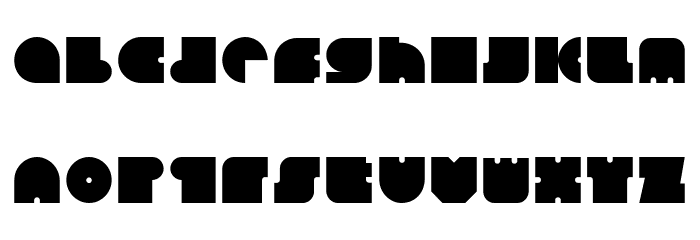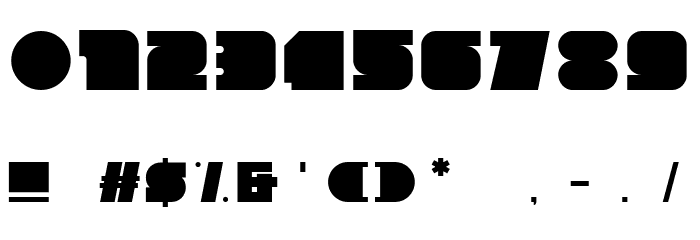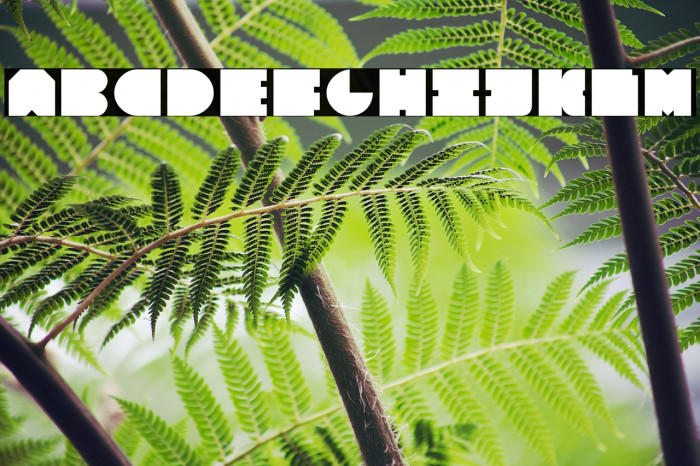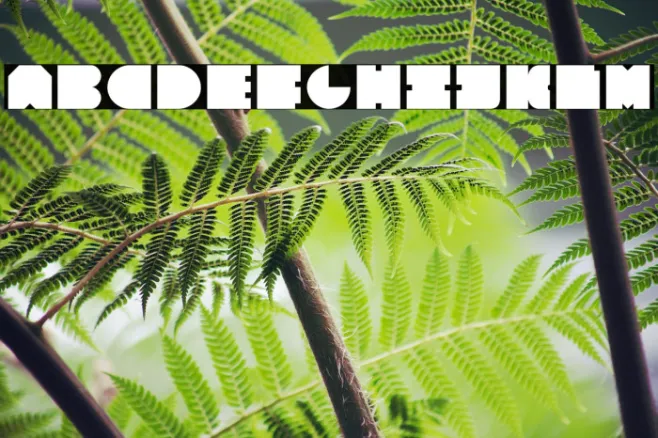
Square80 Font
This font features a bold, geometric style with a strong emphasis on angular shapes and solid forms. The characters are constructed with a blocky, modular design, creating a sense of uniformity and strength. The uppercase letters are particularly striking, with sharp edges and a consistent height, while the lowercase letters maintain the same boldness but with slightly softer curves. The numbers and special characters follow the same design principles, ensuring a cohesive look across all glyphs. This font's unique style makes it stand out, offering a modern and edgy aesthetic.
A bold, geometric font with angular shapes and a modular design.
- Proposed Projects: Ideal for branding, poster design, and any project requiring a modern, impactful typeface.